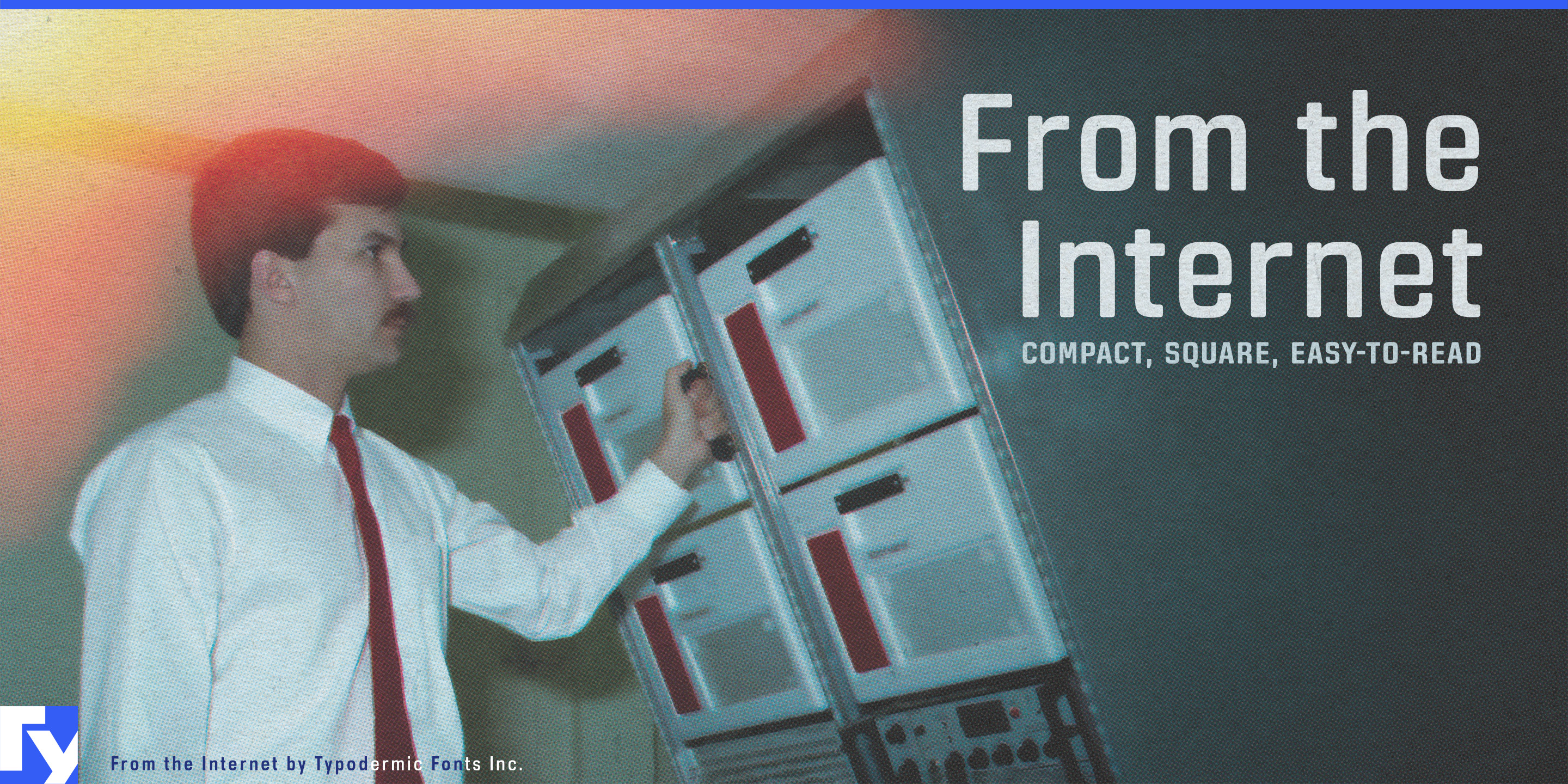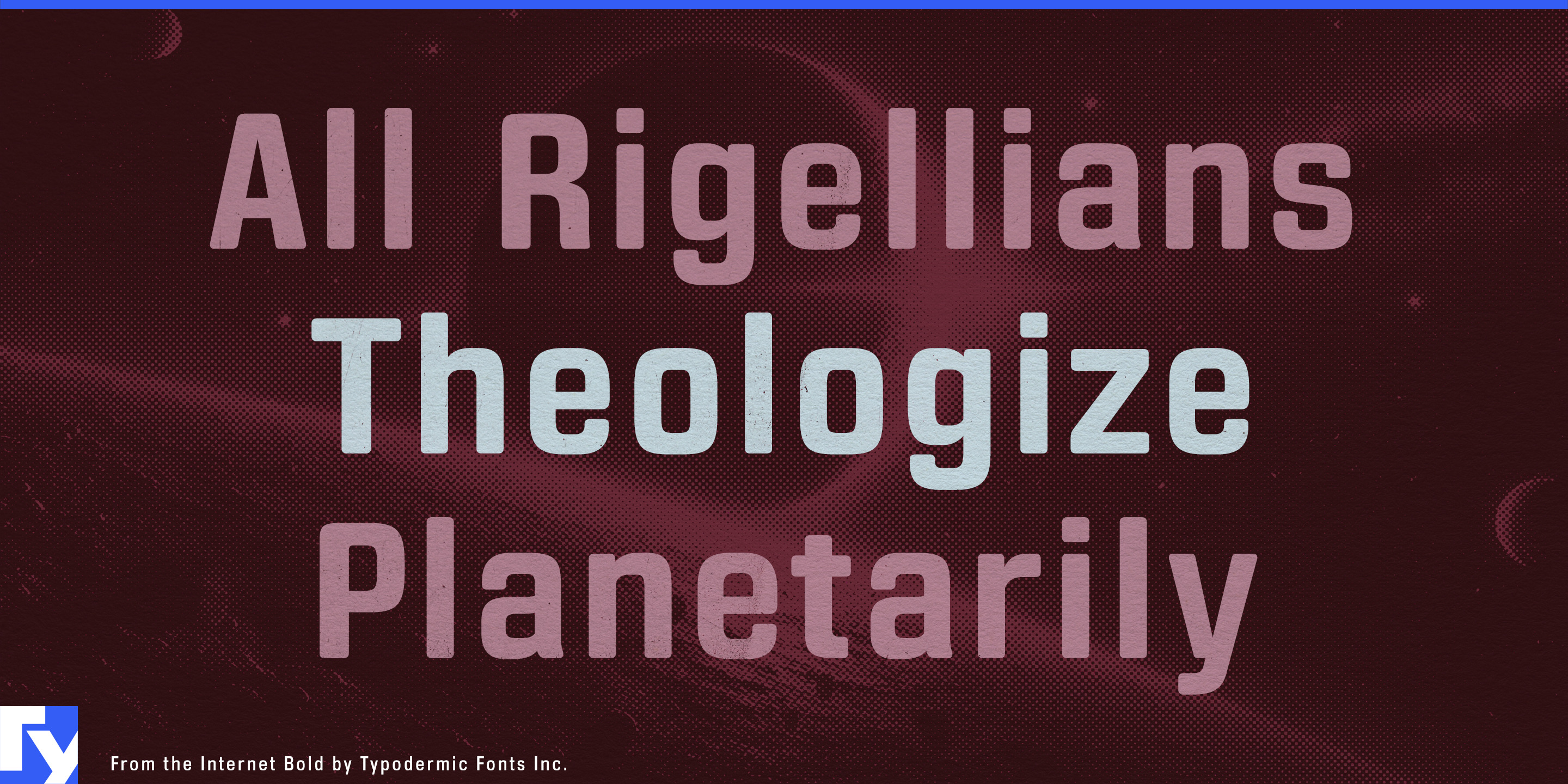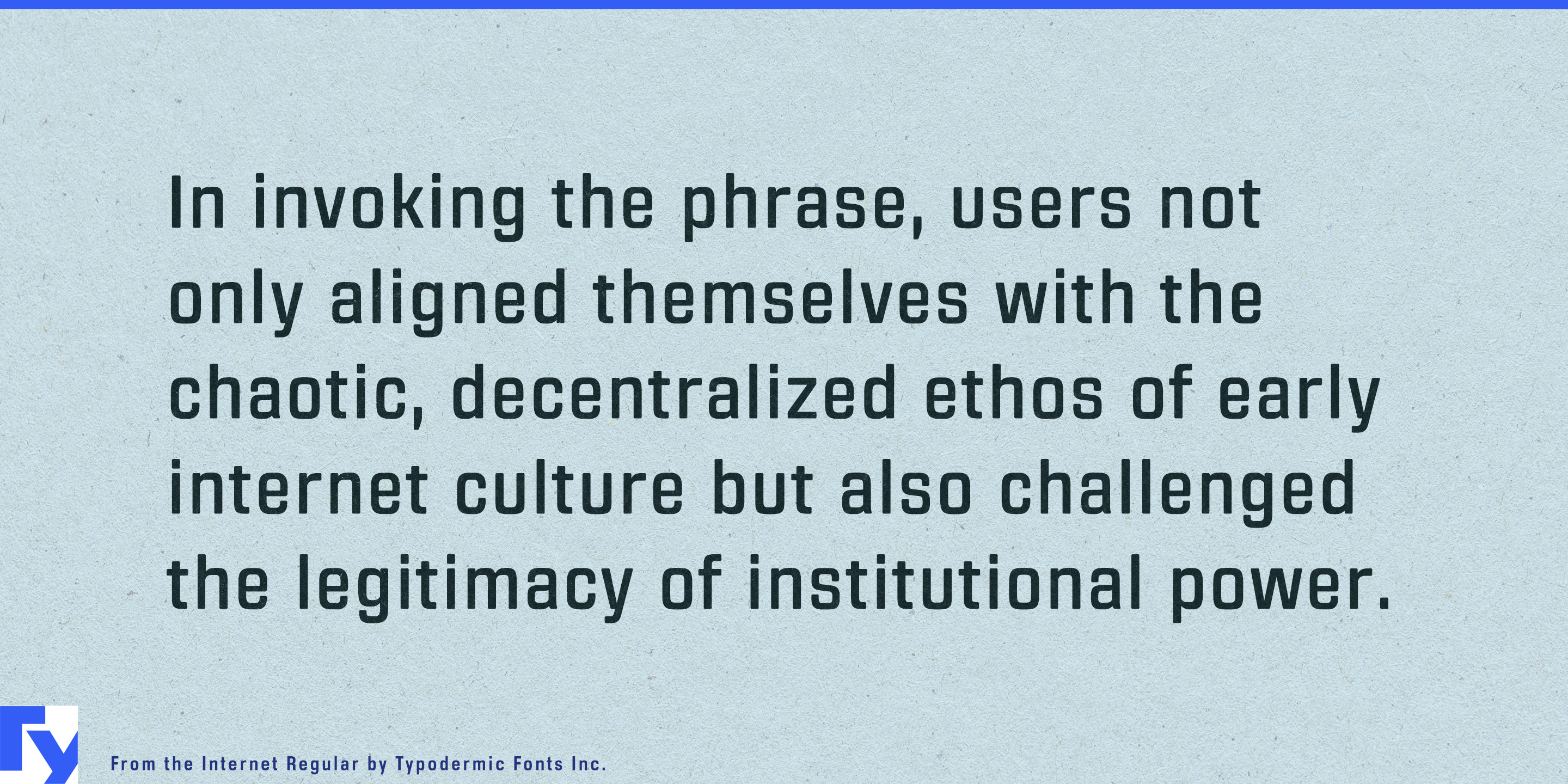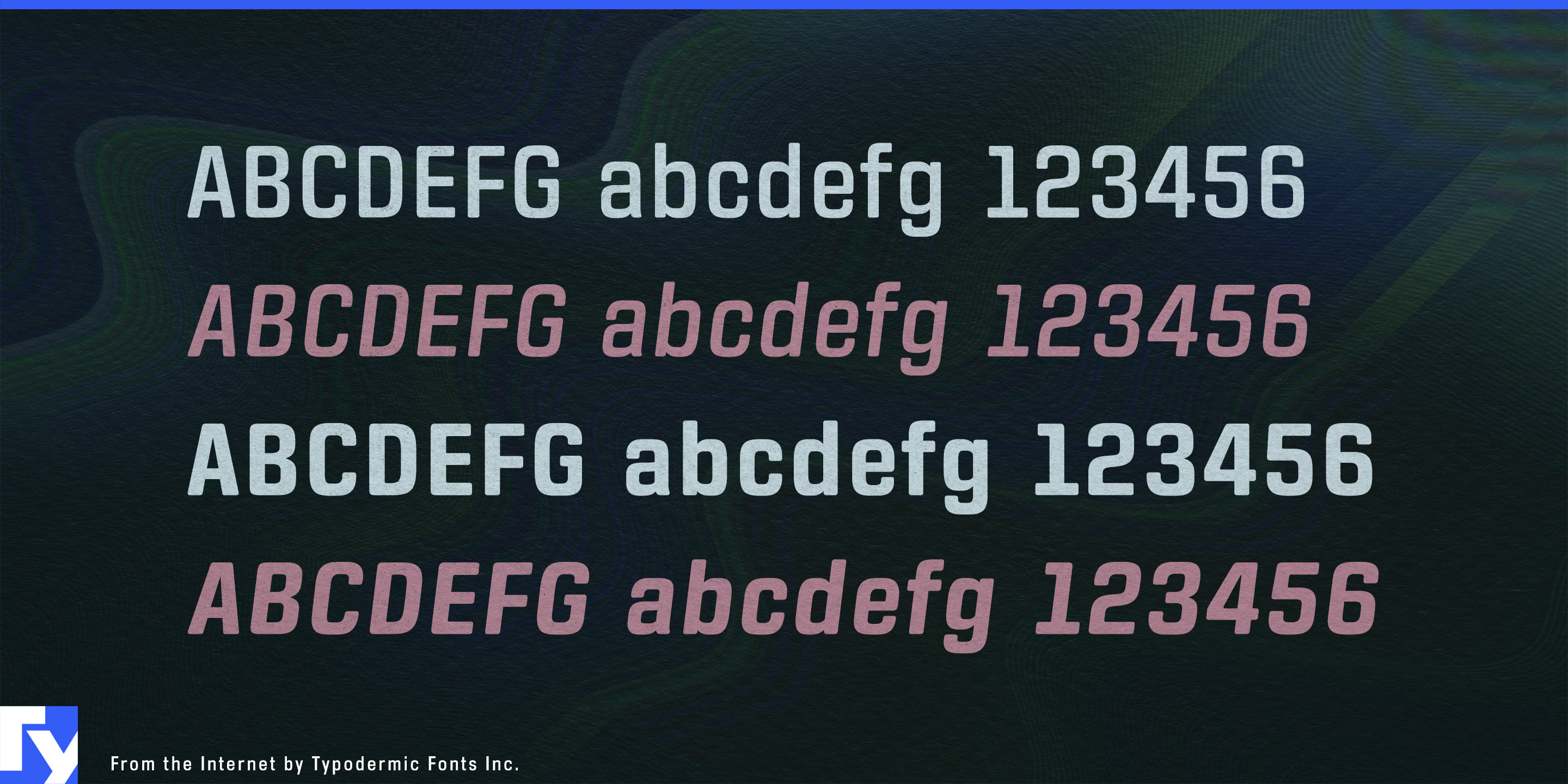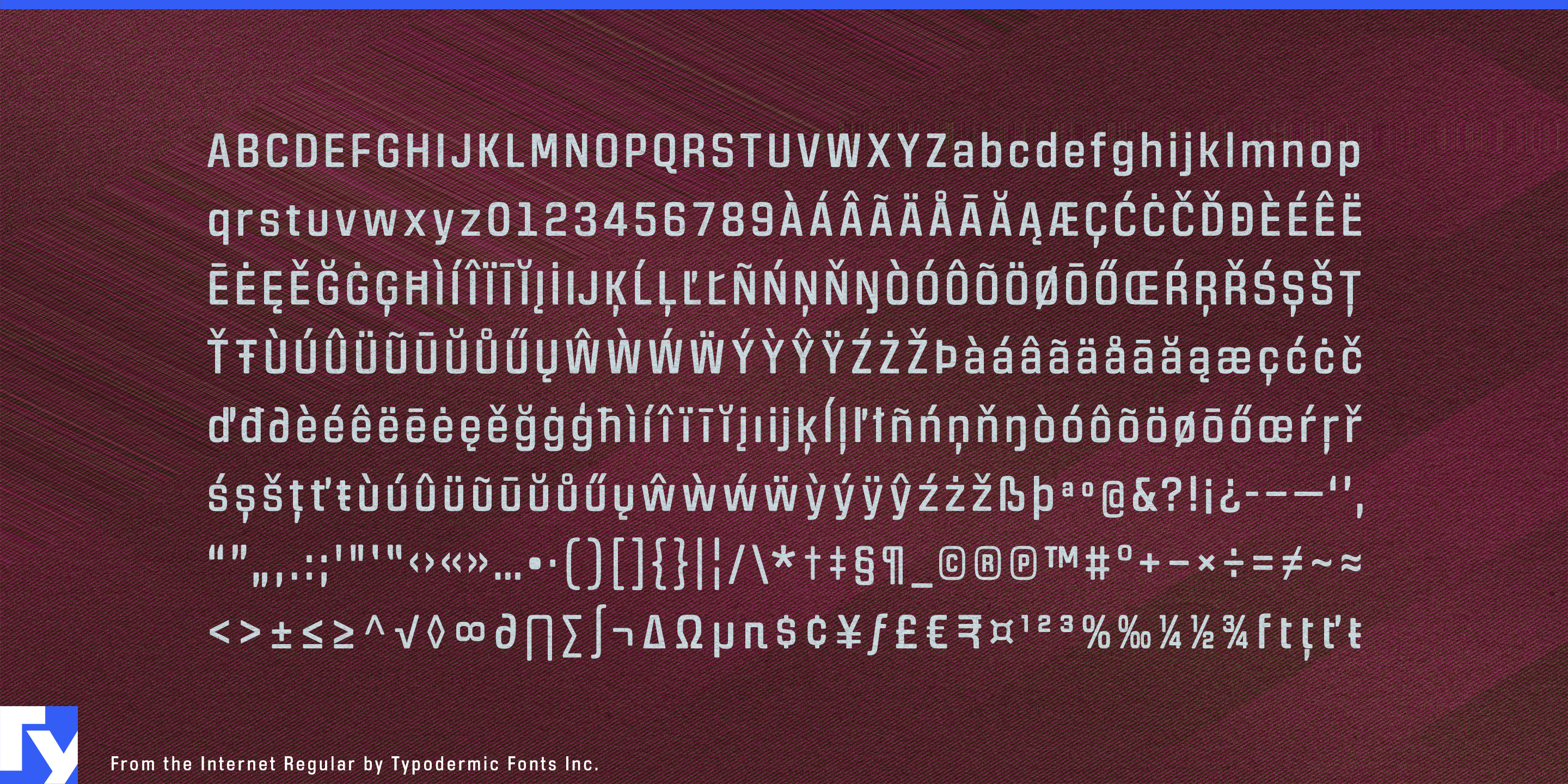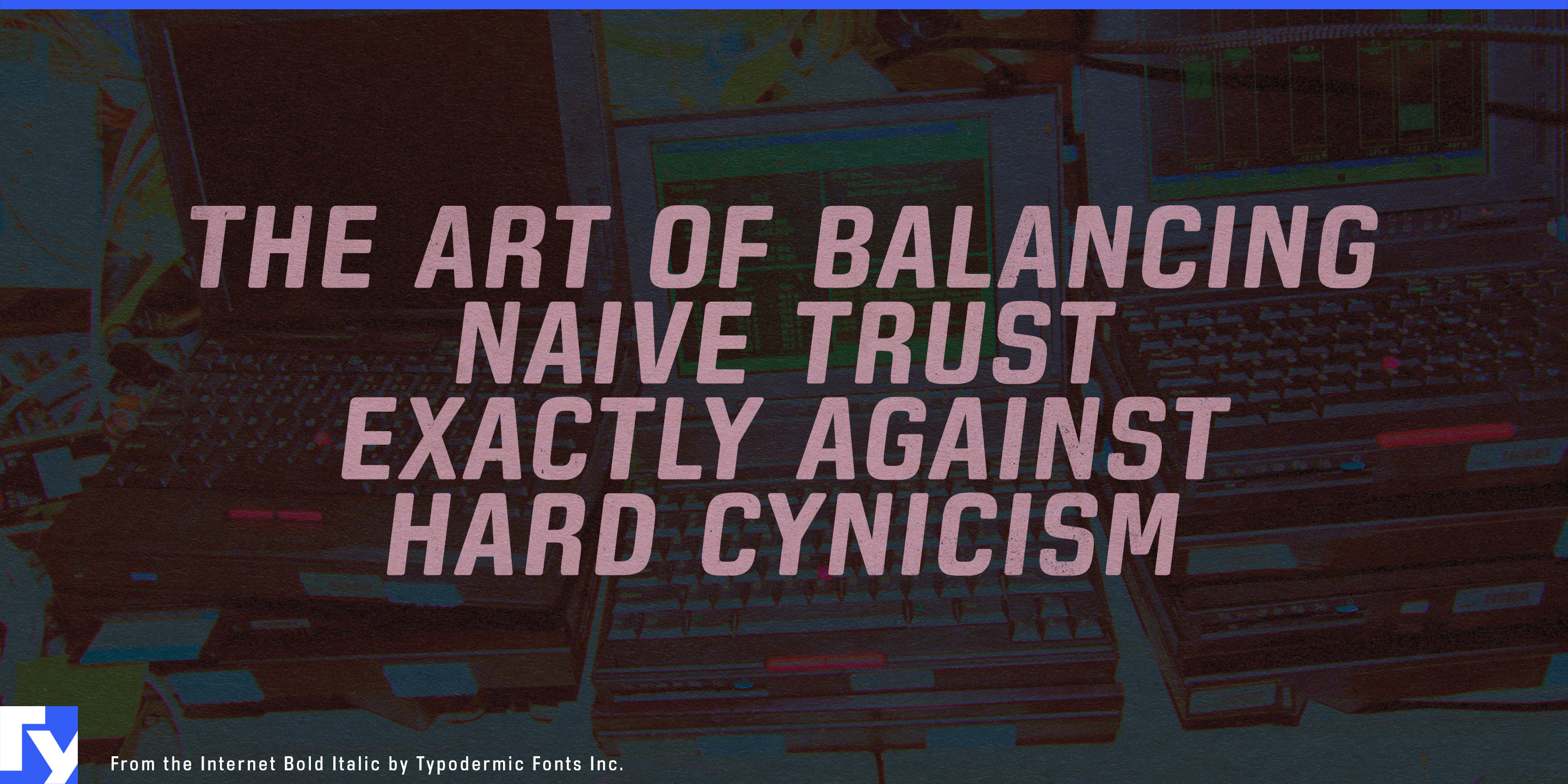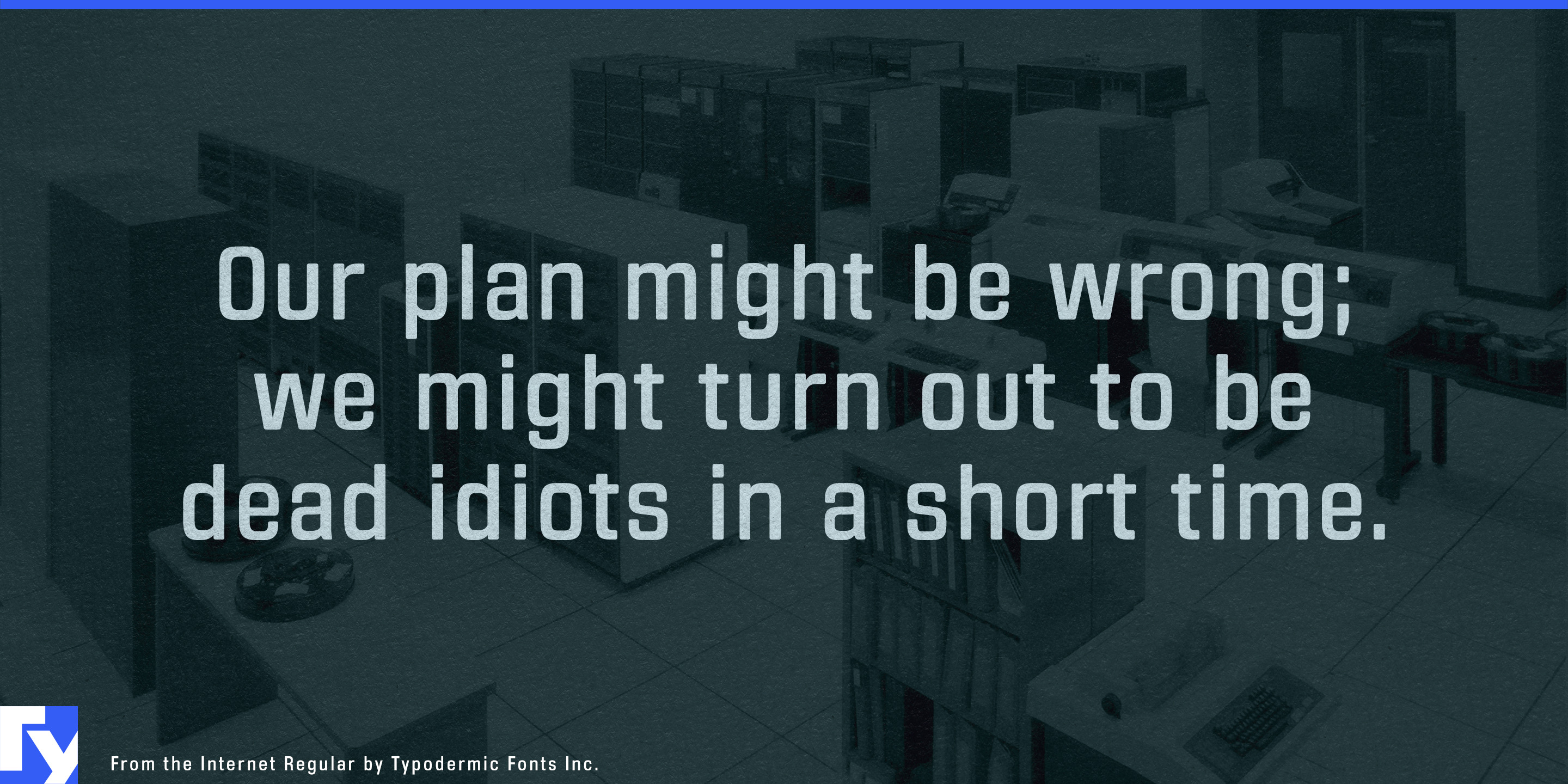
From the Internet
Technical display faces often work well on a machine and become awkward the moment the design has to explain what the machine does. From the Internet was built to cross that boundary. Its compact proportions, squared construction, softened corners, and readable lowercase give it an engineered appearance without restricting it to model names and oversized headlines.
That makes it especially useful for industrial automation. Robot cells, machine-vision systems, automated storage equipment, semiconductor machinery, and other factory systems generate a whole ecosystem of typography around the product itself. From the Internet can move from enclosure labels and touchscreen controls to status panels, installation diagrams, training screens, service instructions, trade-show graphics, and product literature without losing the technical character of the identity.
Warehouse and logistics systems present the same problem at larger scale. Package-sortation dashboards, handheld scanner interfaces, automated picking stations, dock-door displays, inventory terminals, route-dispatch screens, and equipment labels all need to fit substantial operational language into restricted spaces. From the Internet’s compact width gives long destination names, equipment identifiers, status messages, and control labels more room before designers have to abbreviate or shrink them.
Commercial energy, building systems, and professional electronics offer similar territory. EV chargers, battery-management equipment, heat-pump controllers, ventilation systems, laboratory devices, network appliances, industrial cameras, and measurement equipment combine physical controls with software, diagrams, specifications, and service material. From the Internet’s square forms sit naturally among displays, buttons, connectors, and modular panels, while its softened corners avoid the look of a simulated LCD or science-fiction console.
Its real advantage is continuity. A product identity does not have to stop at the front panel and hand everything else to an unrelated neutral sans. From the Internet can follow a machine into its interface, labels, diagrams, training material, service documentation, and operational software, giving the informational layer of a technical system one consistent voice.